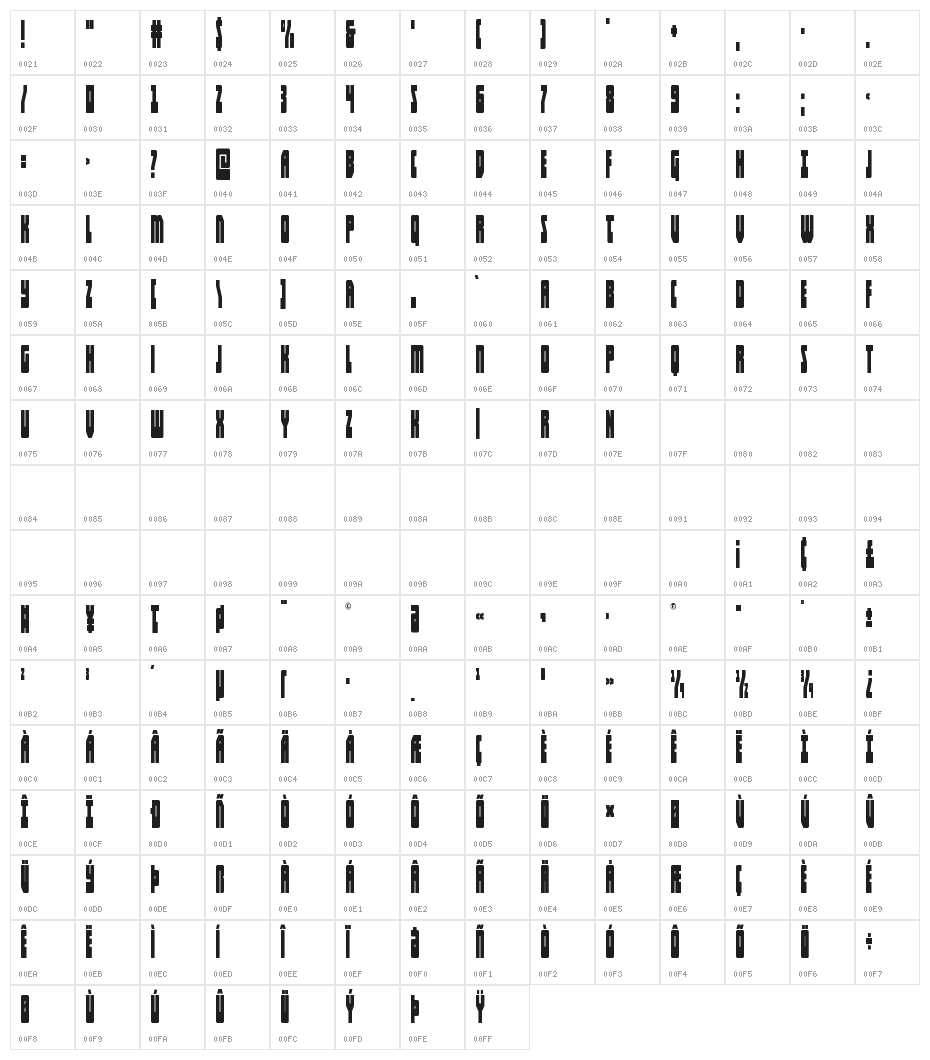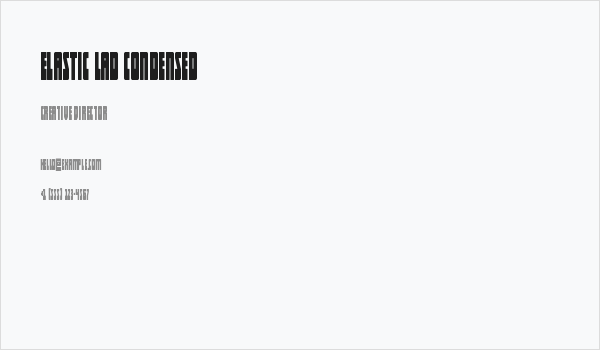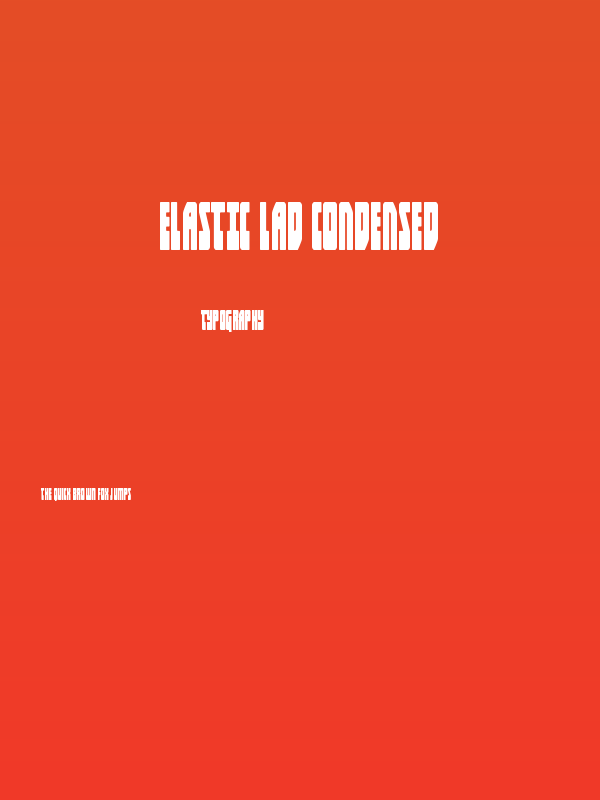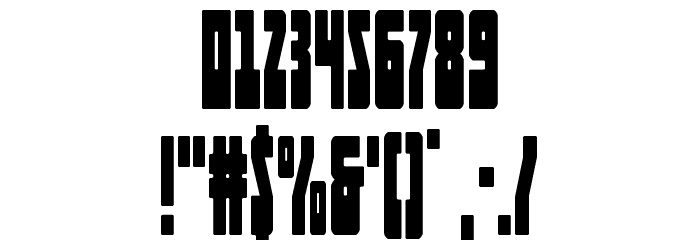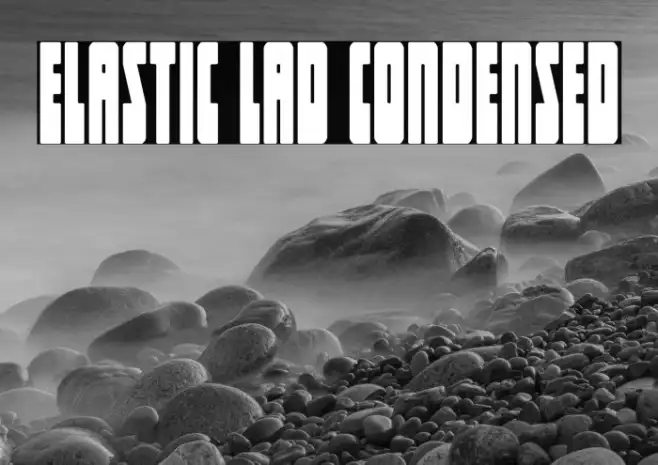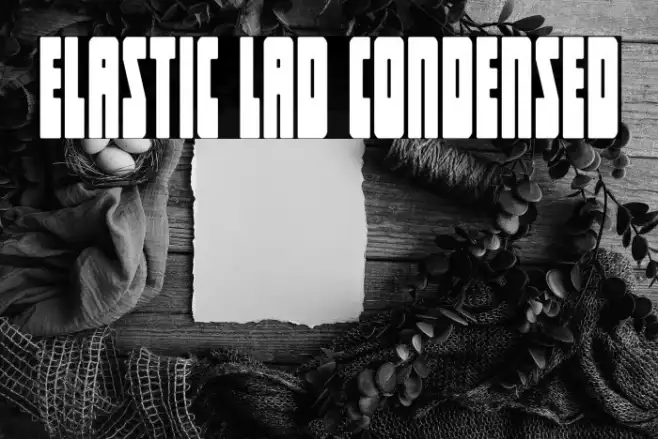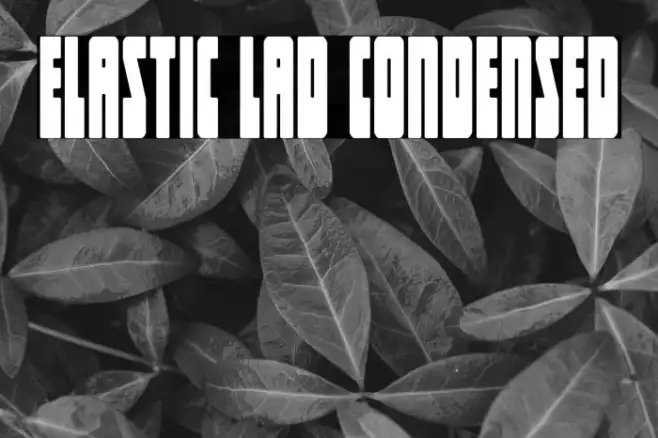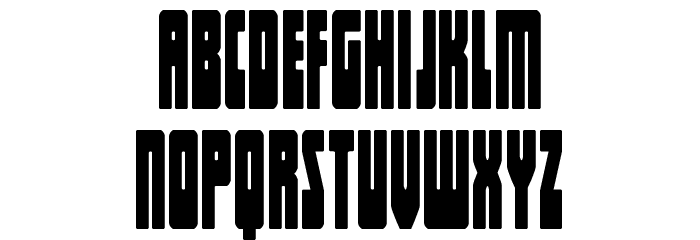
Elastic Lad Condensed Font
Elastic Lad Condensed Description
This font features a bold and condensed style with a strong geometric influence. The characters are tightly packed, creating a sense of urgency and impact. The uppercase letters are particularly striking, with their tall and narrow forms. The numbers and special characters maintain the same condensed and bold aesthetic, ensuring consistency across all glyphs. This font's unique style makes it ideal for attention-grabbing headlines and display purposes.
| Proposed Projects | Ideal for posters, logos, and headlines where a strong visual impact is needed. |